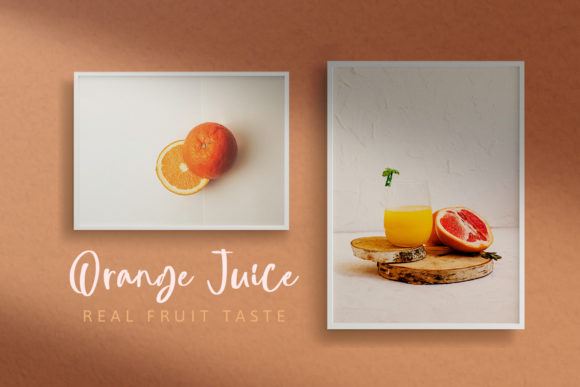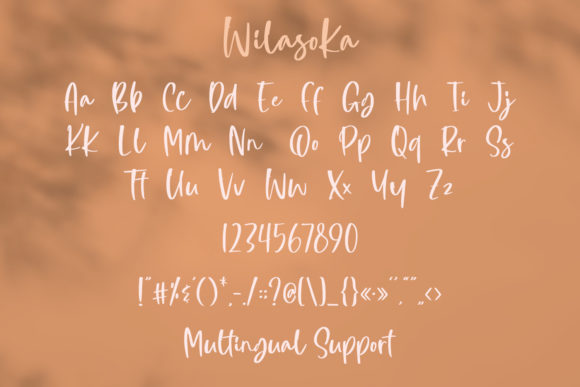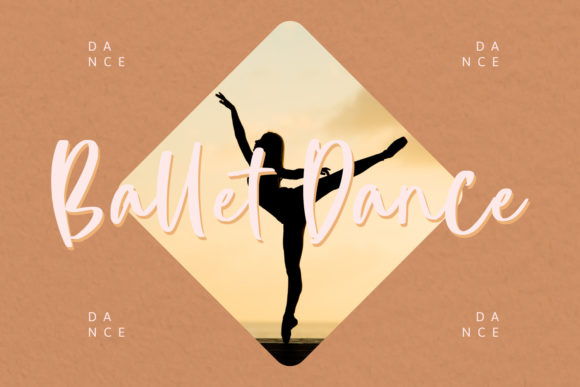
About Wilasoka Font
Wilasoka is a laid-back script font featuring charming, playful characters that seem to dance along the baseline. Add this font to your most creative ideas, and notice how it makes them stand out!